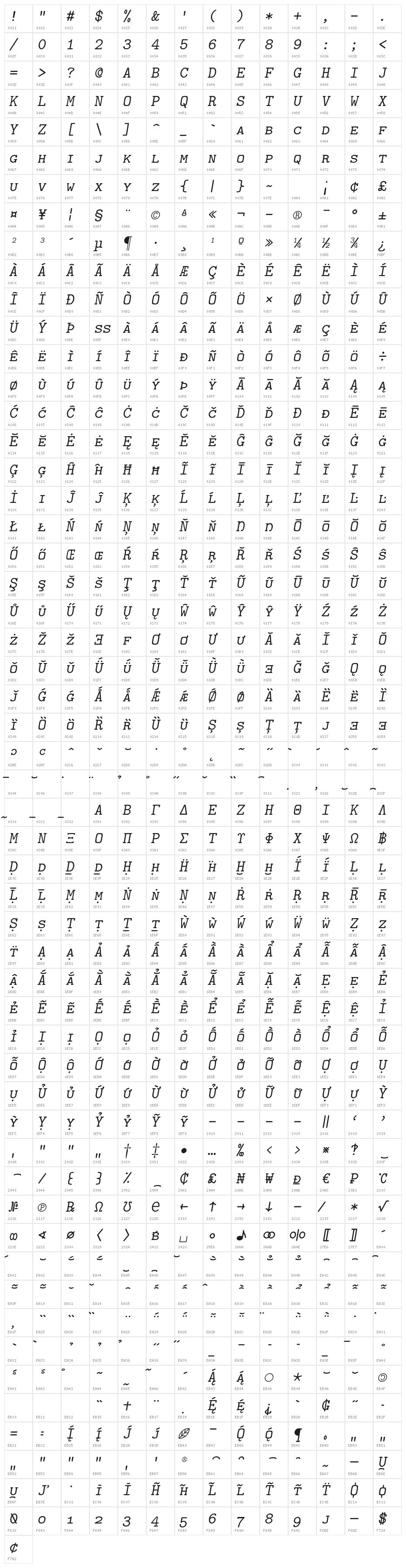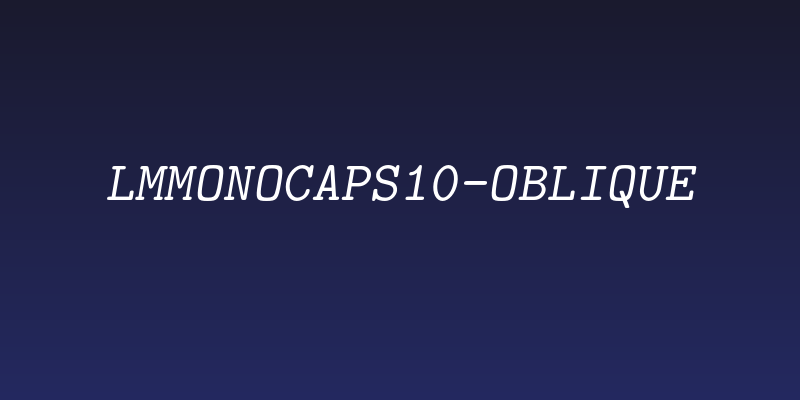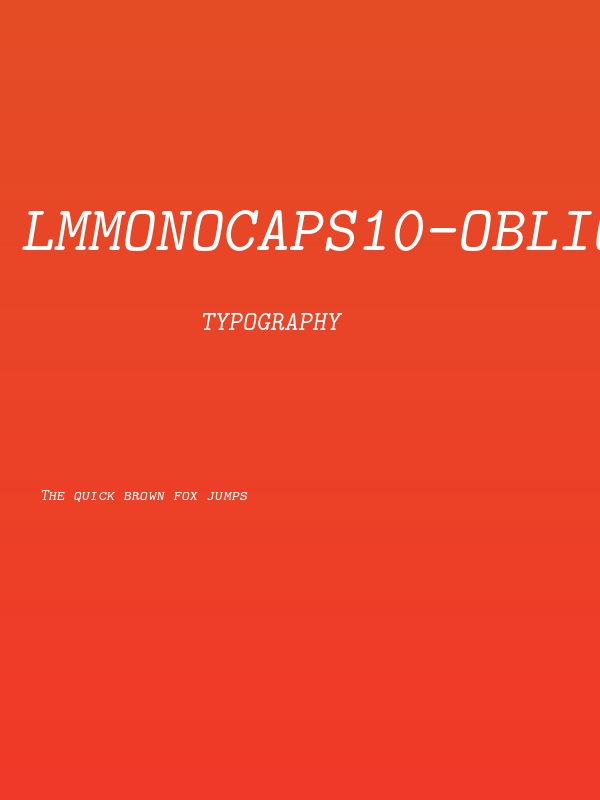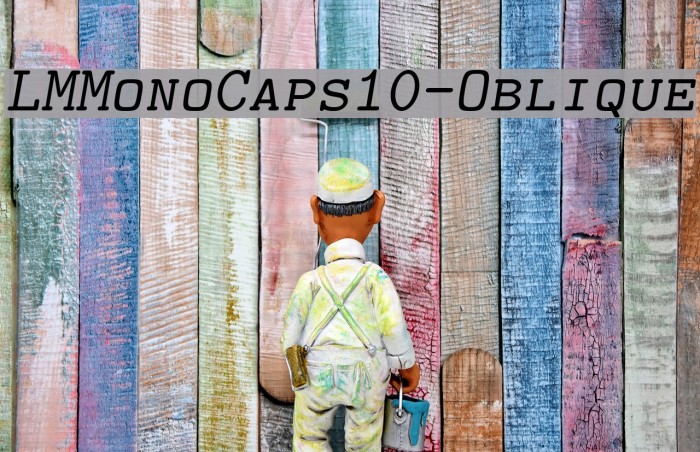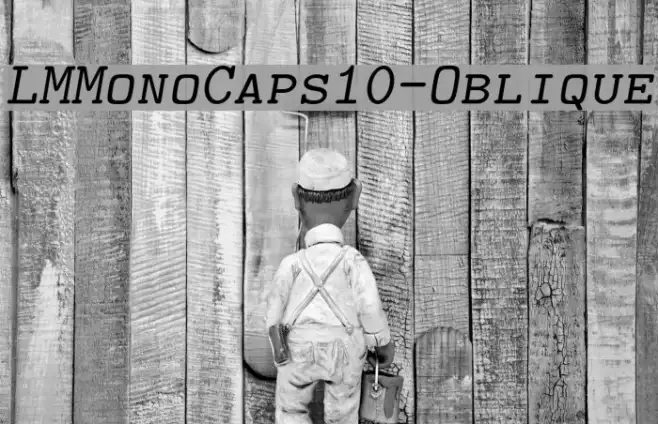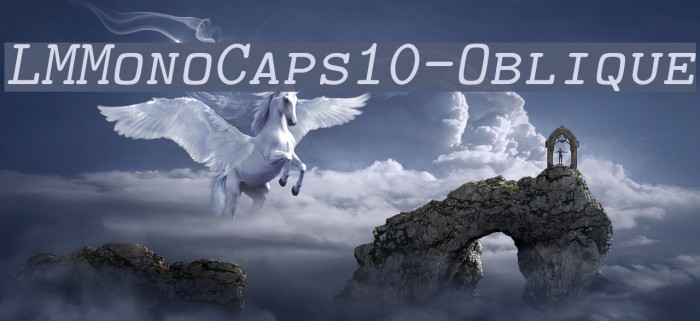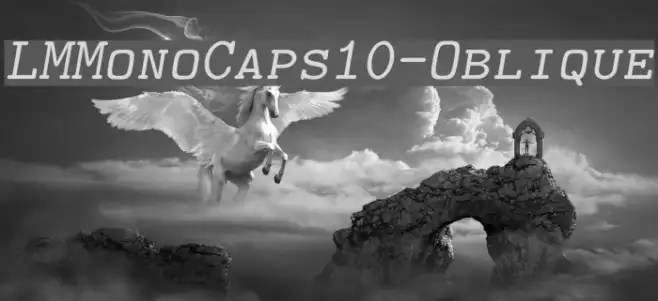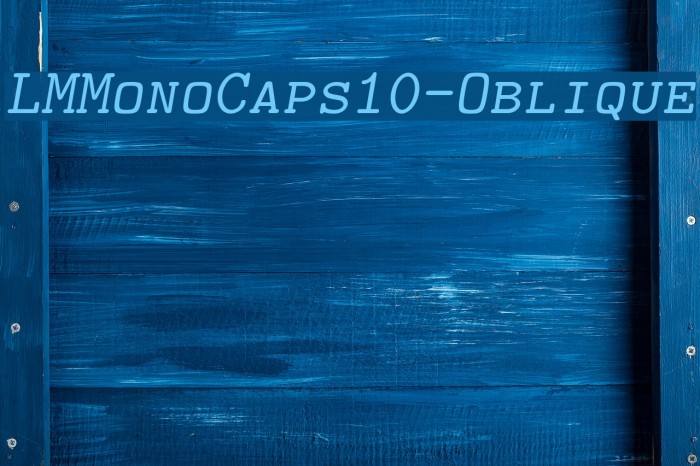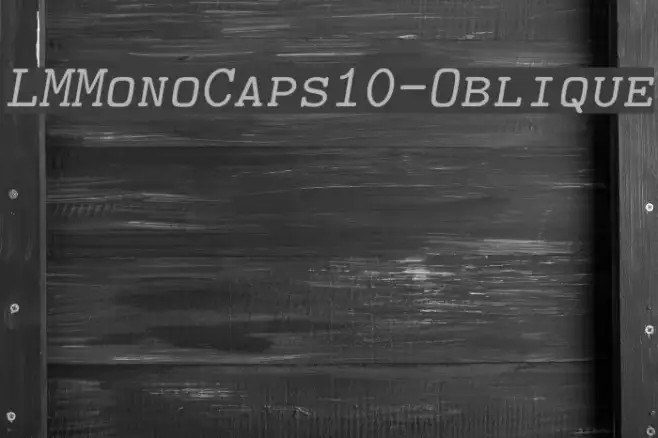
LMMonoCaps10-Oblique Font
LMMonoCaps10-Oblique Description
This font features a monospaced design with an oblique style, giving it a distinct slant that adds a dynamic feel to the text. The characters are evenly spaced, providing a uniform appearance that is ideal for coding and technical documents. The strokes are consistent in thickness, offering a medium contrast that ensures readability while maintaining a sleek, modern look. The font includes a full set of uppercase and lowercase letters, numerals, and a variety of special characters, making it versatile for different uses.
| Proposed Projects | Ideal for coding, technical documentation, and any project requiring a clean, structured appearance. |